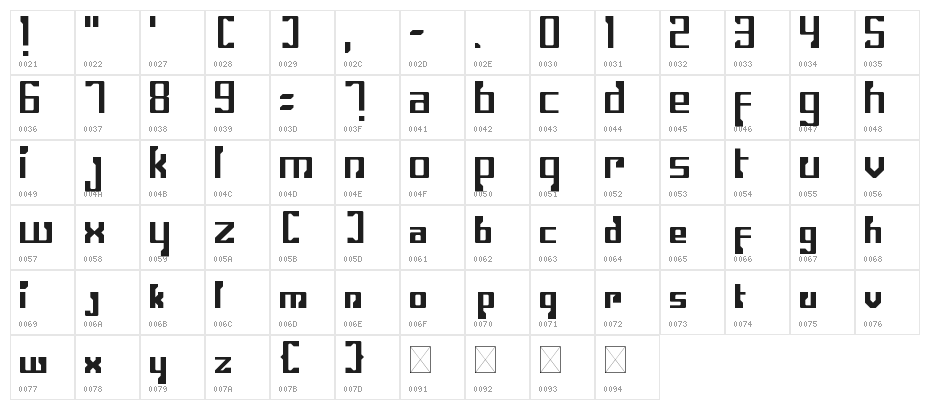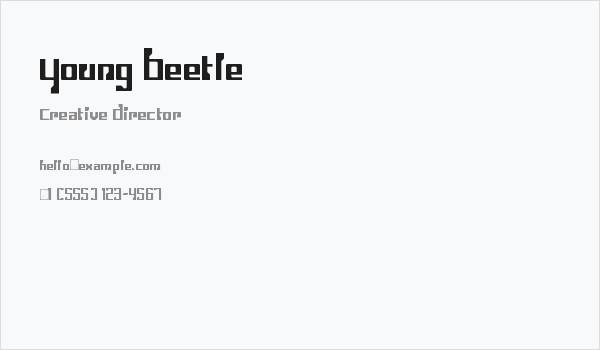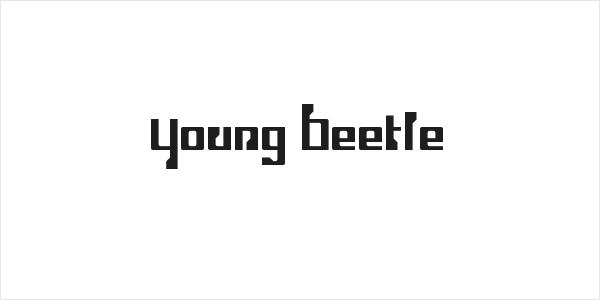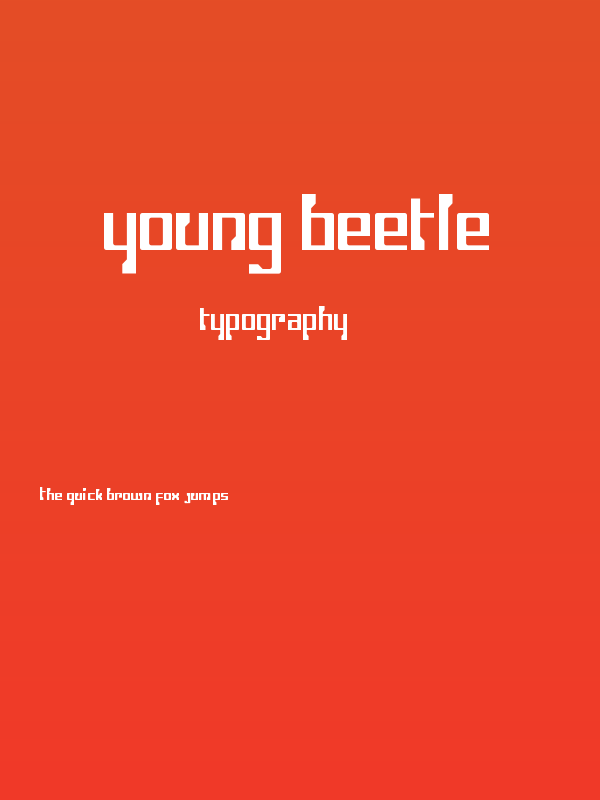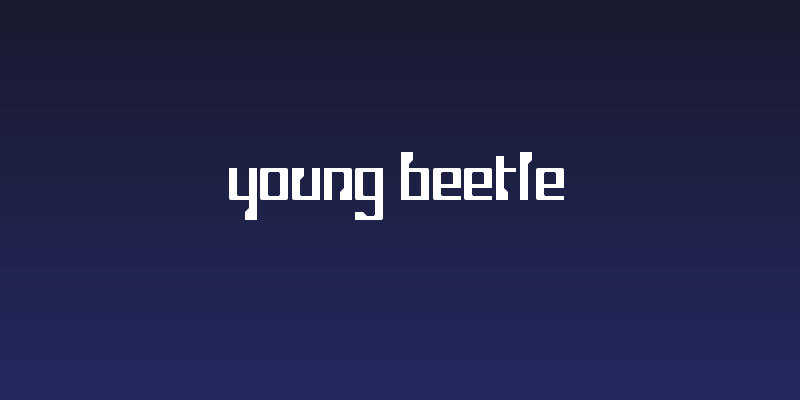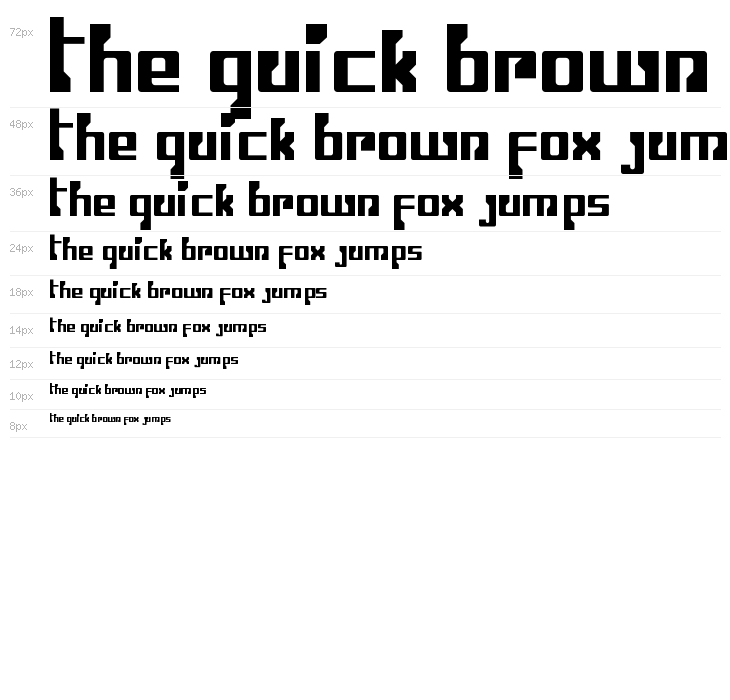
Young Beetle Font
Young Beetle Description
This font features a bold and geometric design, characterized by its angular and block-like letterforms. The sharp edges and uniform stroke widths give it a modern and futuristic appearance. Each character is distinct, with a consistent height and width that creates a cohesive look across the alphabet. The numbers and special characters maintain the same stylistic approach, ensuring a seamless integration with the letters. This font's unique style makes it stand out, offering a striking visual impact.